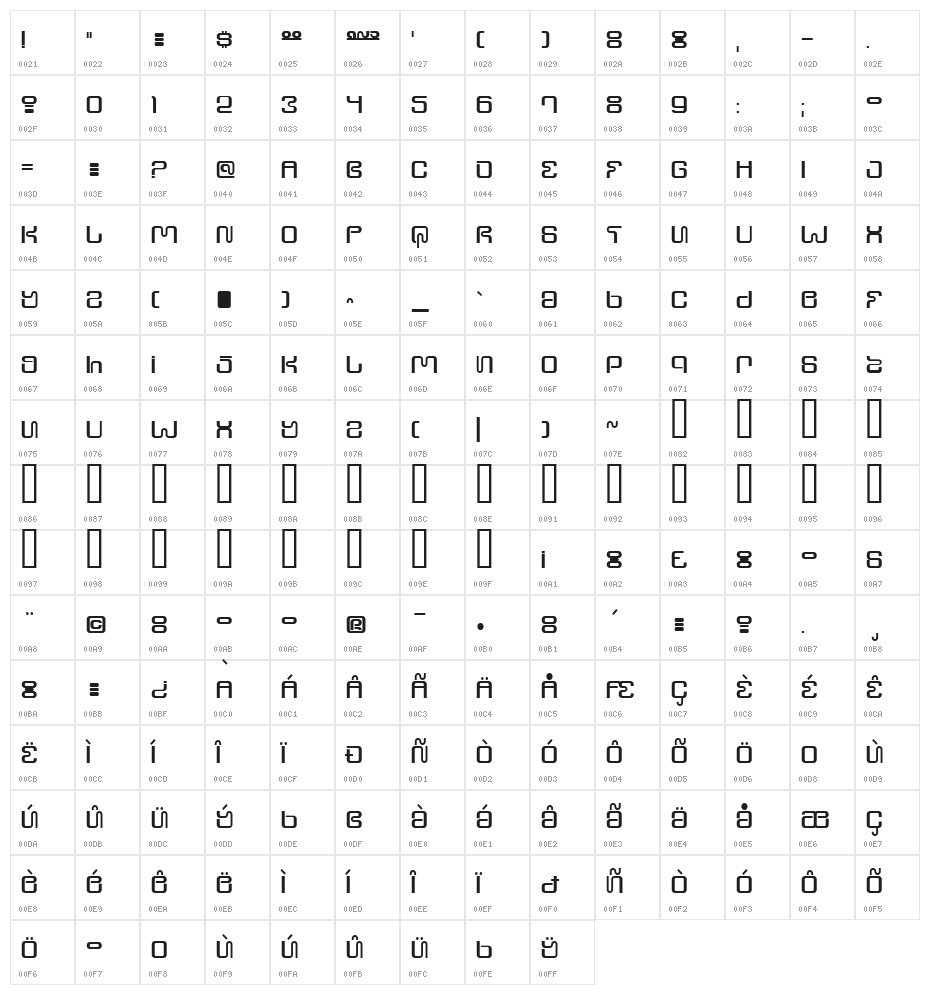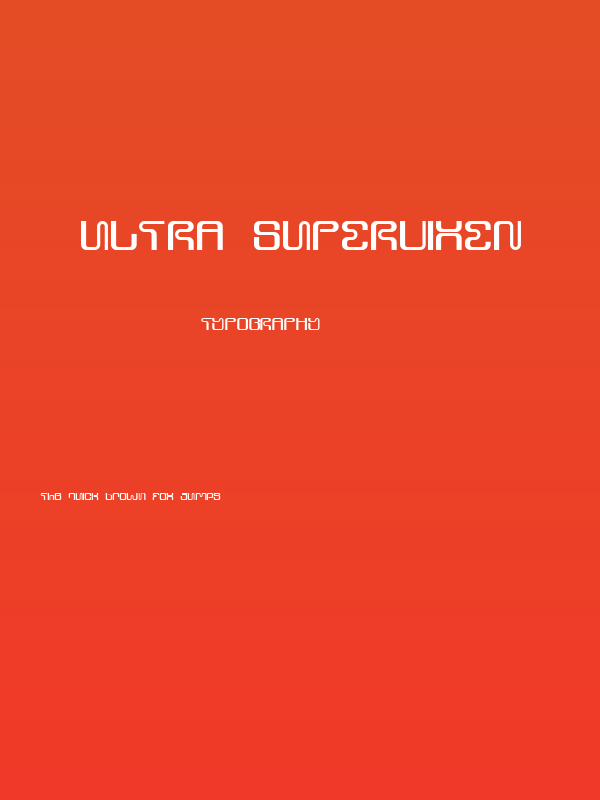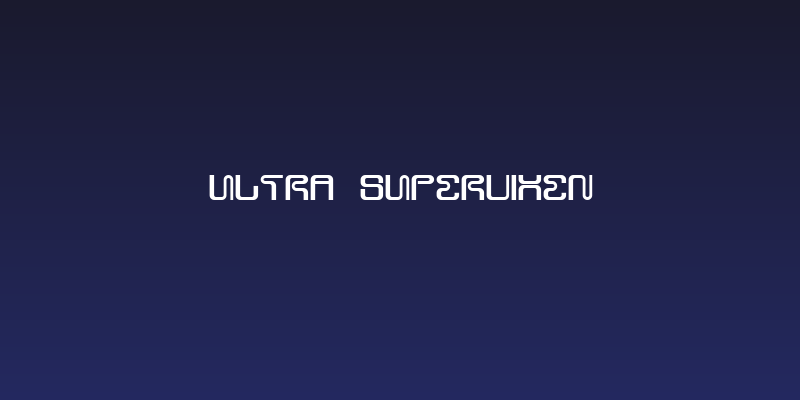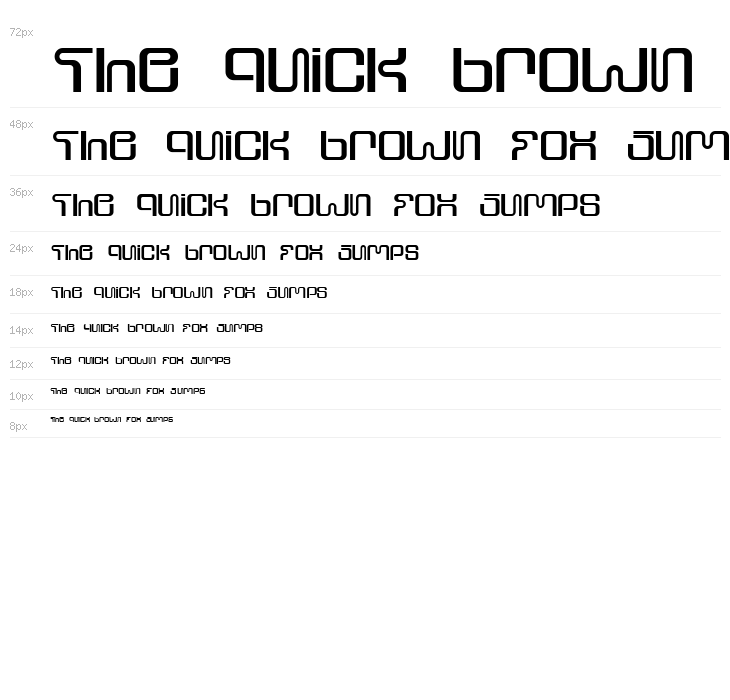
Ultra Supervixen Font
Ultra Supervixen Description
This font features a futuristic and geometric design with a unique blend of rounded and angular elements. The characters are constructed with consistent stroke widths, giving it a uniform appearance. The uppercase letters have a distinctive style with some characters incorporating unexpected curves and lines, adding to its modern aesthetic. The lowercase letters maintain the same geometric style, ensuring readability while still being visually interesting. Numbers and special characters follow the same design principles, making the font cohesive across all elements. Its bold and structured form makes it suitable for attention-grabbing designs.
| Proposed Projects | Ideal for sci-fi themed projects, technology branding, modern posters, and innovative product packaging. |